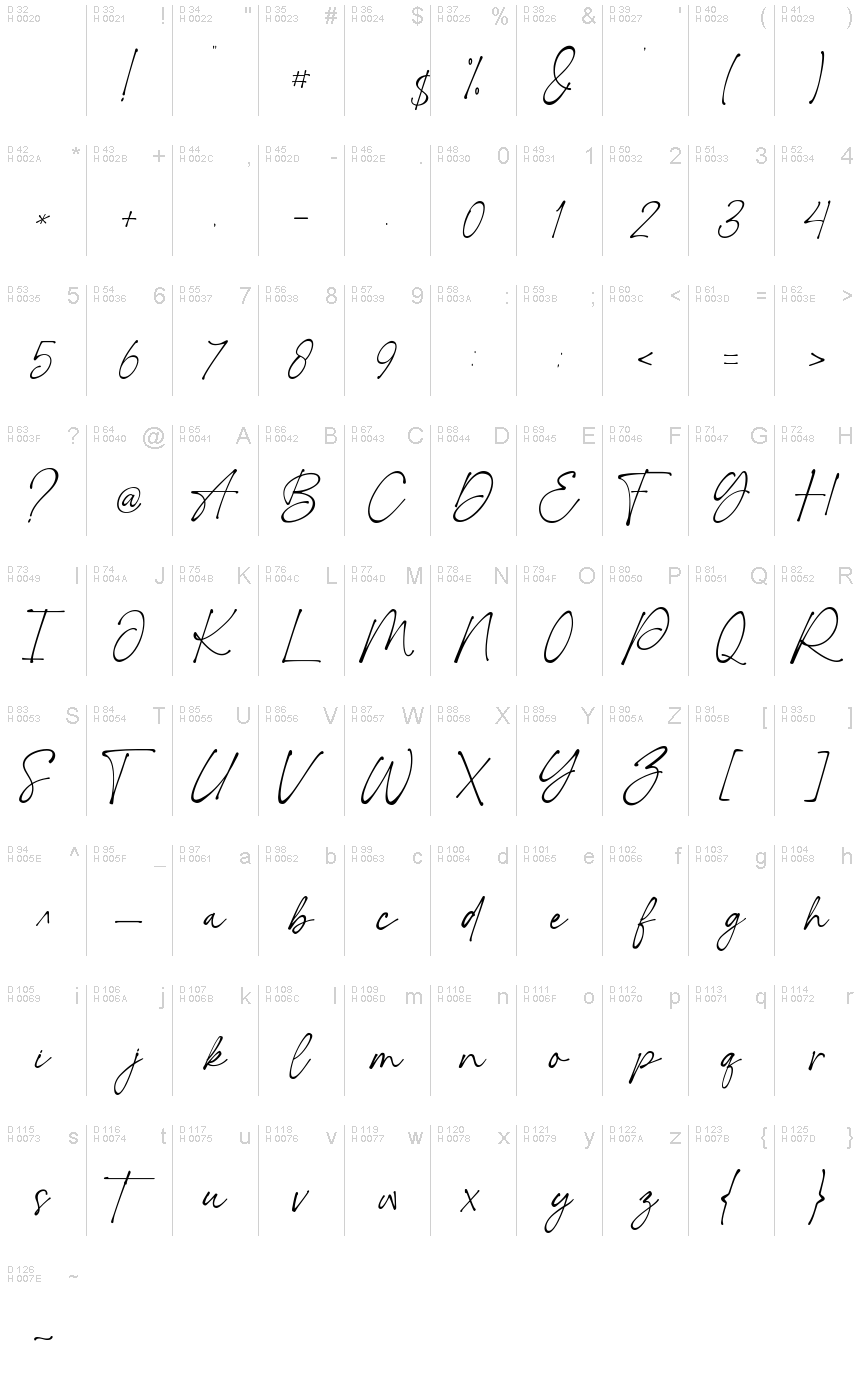
Romantic Signature
Romantic Signature, crafted by Ramli Setiadi, exudes an enchanting, handwritten charm that captivates at first glance. This light, flowing script boasts a captivating elegance, with each stroke evoking a sense of effortless sophistication. The signature-inspired design adds a touch of personalization, making it an alluring choice for projects seeking a personalized, heartfelt aesthetic.
Romantic Signature's versatility shines through, making it a versatile option for a wide range of applications. From wedding invitations and greeting cards to branding and packaging, this font's graceful, expressive qualities lend themselves beautifully to projects that require a touch of romantic flair. Its delicate, yet legible form ensures a seamless integration into various design contexts, elevating the overall visual appeal.